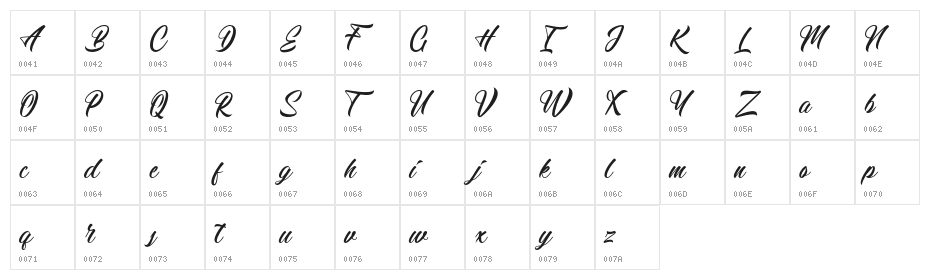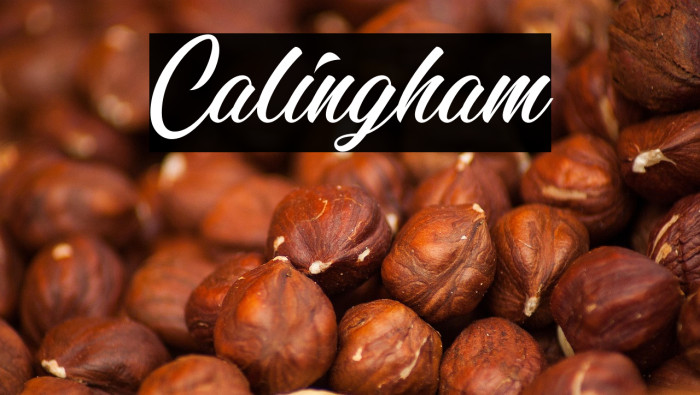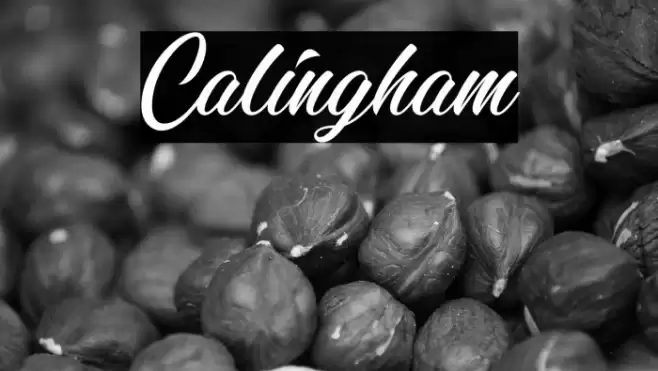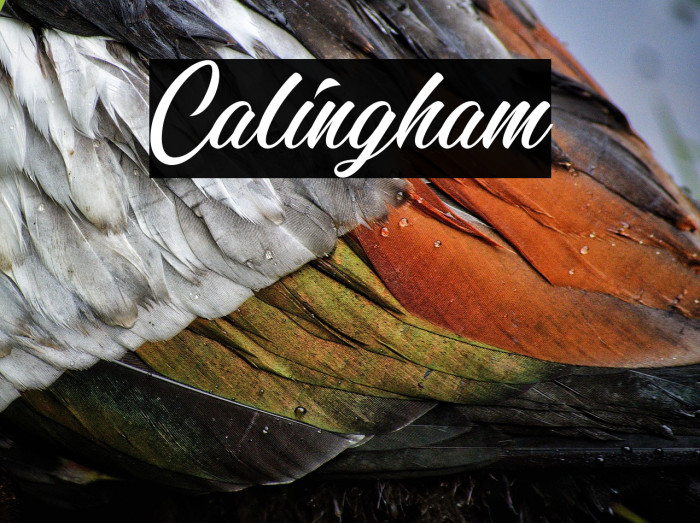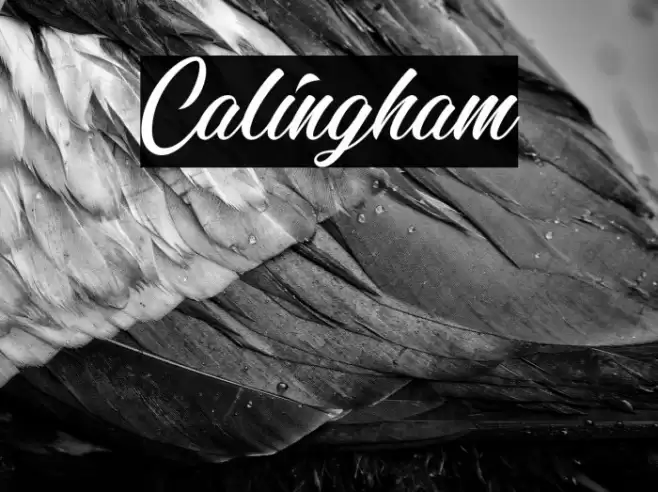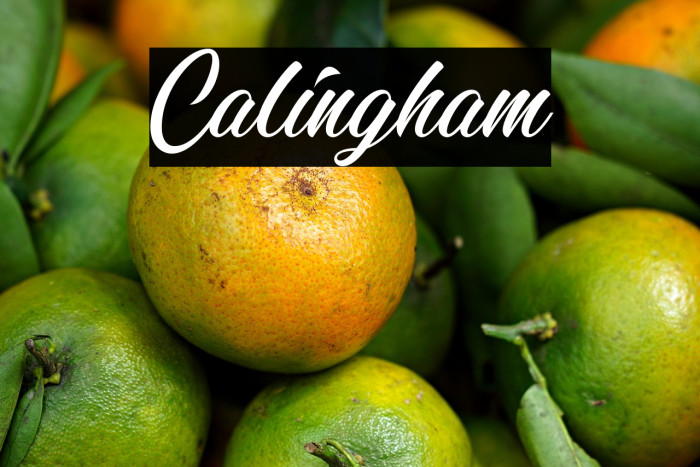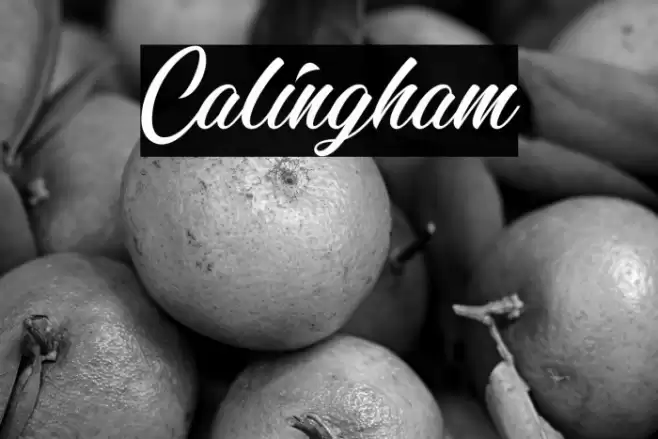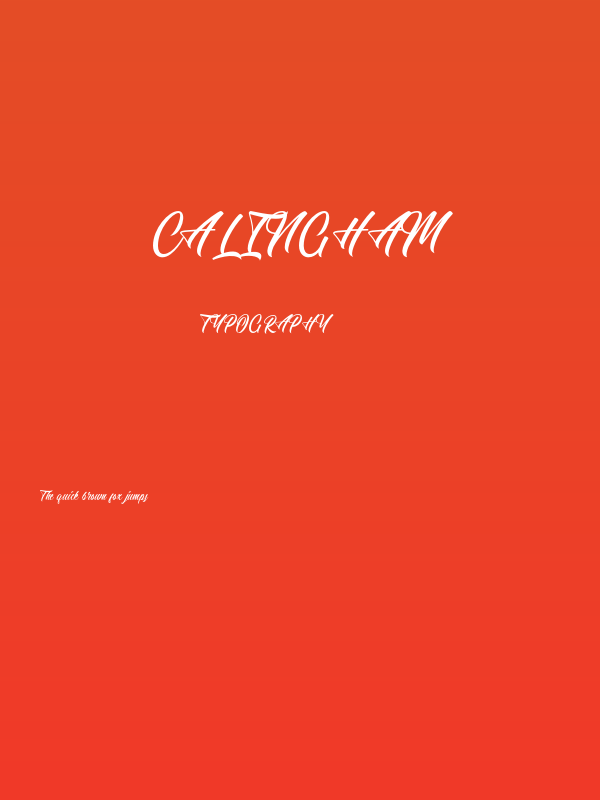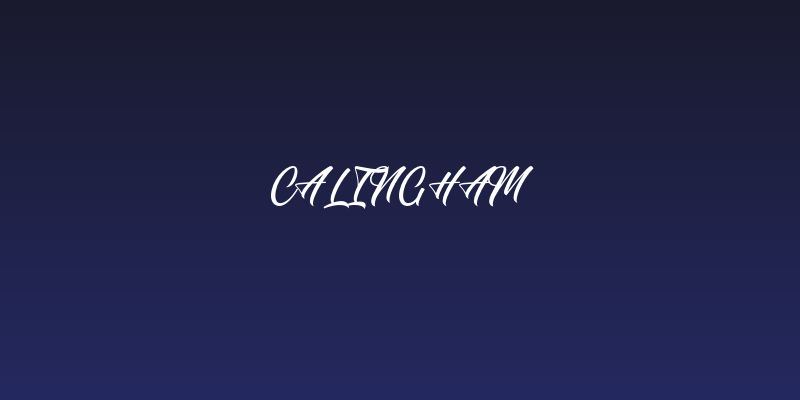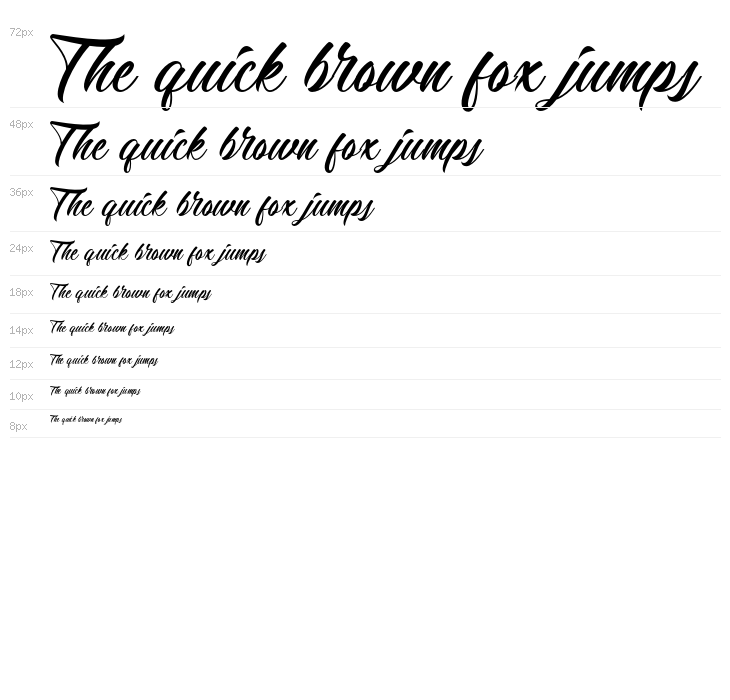
Calingham Font
Calingham Description
This font exudes elegance and sophistication with its flowing, cursive style. Each letter is crafted with smooth, sweeping strokes that give it a sense of motion and grace. The uppercase letters are particularly ornate, featuring intricate loops and flourishes that add a decorative touch. The lowercase letters maintain a consistent style, with gentle curves and a slightly slanted orientation that enhances readability. The overall design is balanced and harmonious, making it ideal for projects that require a touch of class and refinement.
| Use Case | Logos, Invitations, Headlines |
| Proposed Projects | Ideal for wedding invitations, elegant branding, luxury product packaging, and sophisticated event posters. |